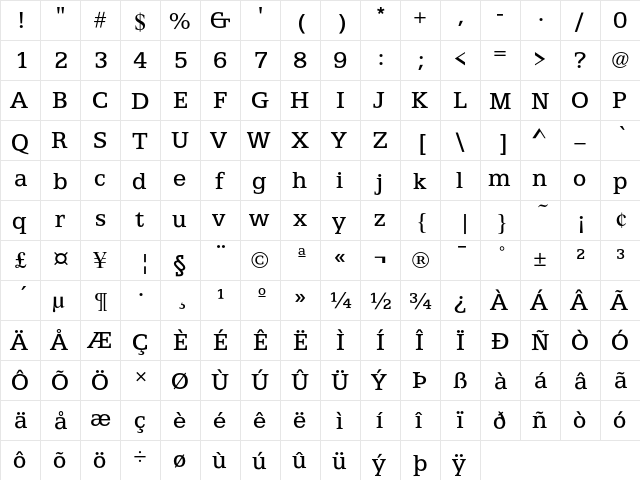
ATFAntique Regular
Design Context for ATFAntique Typeface
ATFAntique has the warm character of retro typography — evoking diners, record sleeves, and the golden age of print advertising.
Perfect for vintage-inspired branding, retro packaging, nostalgia campaigns, and period-accurate editorial design.
Font Pairing: Combine ATFAntique with a simple slab or neutral sans — period-accurate companions reinforce the vintage feel without competing for attention.
Pro Tip: Use ATFAntique for headlines and pull quotes rather than body copy — its personality is best appreciated in short, focused bursts.